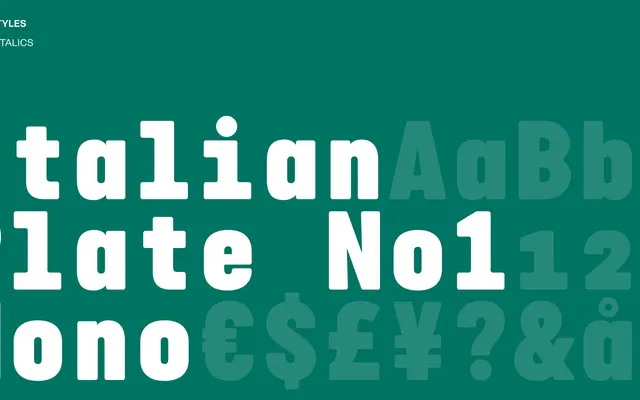
Italian Plate No1 Mono
A monospaced variant from Playtype's Italian Plate No1 family, drawing on plate-lettering traditions for functional and editorial use.
Part of Playtype's Italian Plate series, this mono cut applies the family's industrial plate-lettering sensibility to a fixed-width format. The sparse page content offers little detail on weights or language support, but the lineage suggests a workhorse suited to code, editorial and technical contexts. Its connection to the broader Italian Plate family gives it a coherent visual identity within that system.
The name explicitly includes 'Mono', indicating a monospaced typeface; the Italian Plate naming lineage at Playtype suggests a design rooted in industrial or plate-lettering traditions adapted for monospaced use.